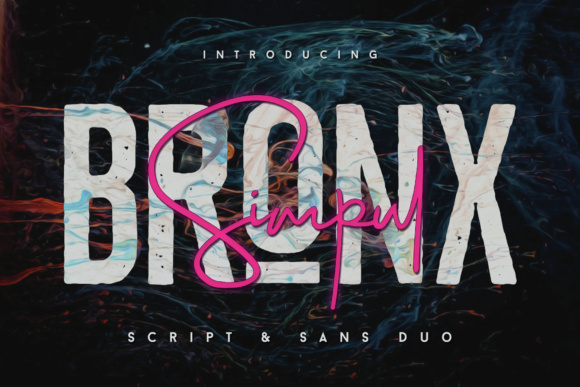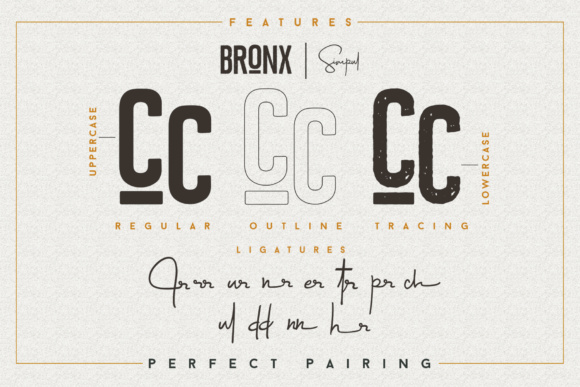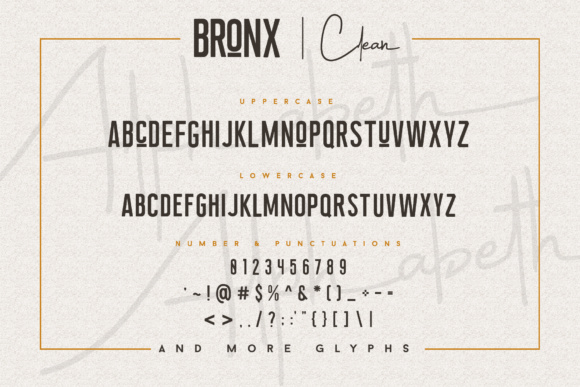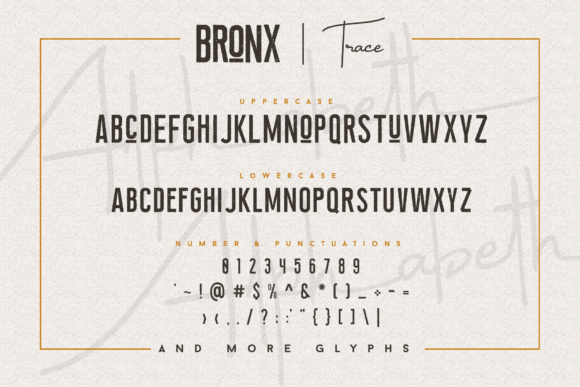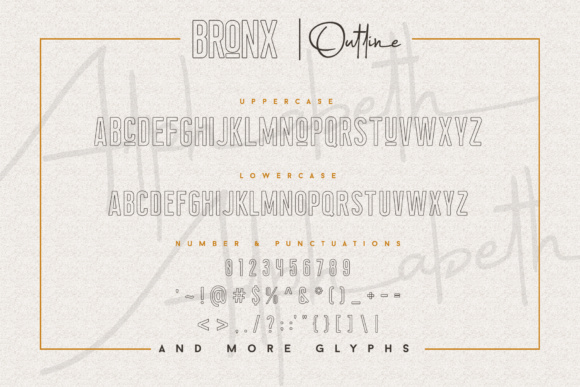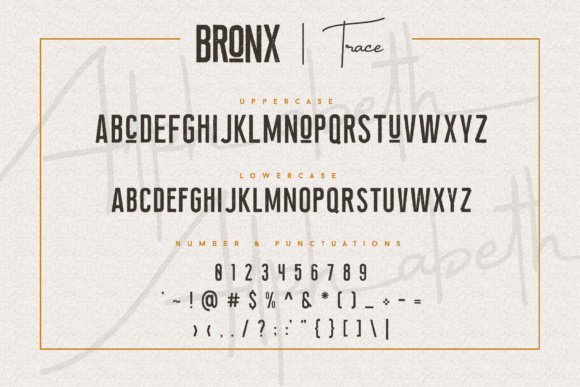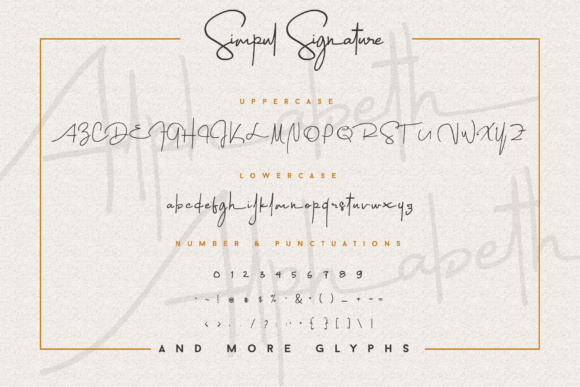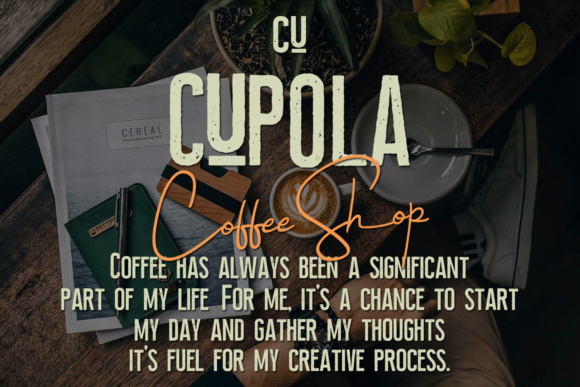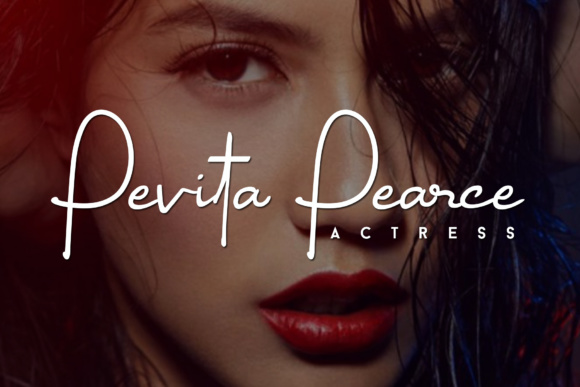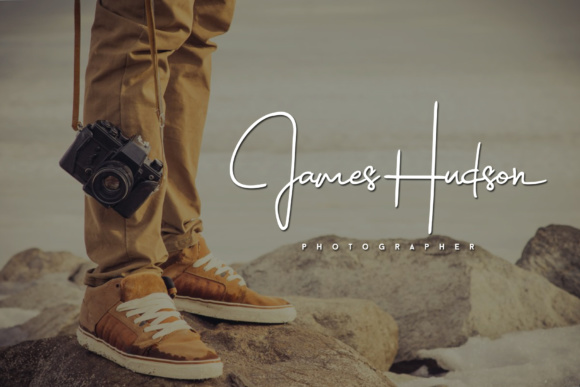
Introducing the Bronx Simpul Sans-Script Font Duo, a classy, contemporary pair of script and serif fonts. With a stylish clean, outline and trace style serif font, expressive script companion, Bronx Simpul offers beautiful typographic harmony for a diversity of design projects, logo names, watermark logos & branding, wedding designs, social media posts, advertisements & product designs.
Simpul Script A clean, free-flowing script font containing upper & lowercase characters, numerals and a large range of punctuation.
Bronx clean This is a second version of Bronx, with a completely new set of upper & lowercase characters. If you wanted to avoid letters looking the same each time to recreate a custom-made style, or try a different word shape, simply switch to this font for an additional layout option.
Bronx outline A classy serif font containing upper & lowercase characters, numerals and a large range of punctuation. Creates a perfect pairing contrast with the Bronx Simpul Script fonts.
simpul Ligatures, If you are unable to access them with open type software. (If you have opentype software, ‘Discretionary Ligatures’ can be turned on for the Script fonts, which will automatically switch standard letter pairs into the provided ligatures).